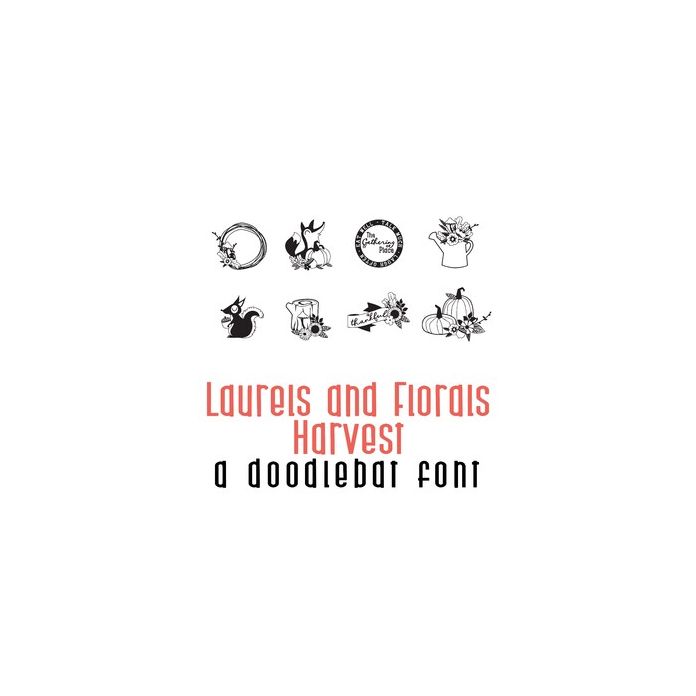
This beautiful doodlebat font features 26 different fall floral and harvest imagery. Perfect for cards, crafts, gifts, decor, planner stickers, scrapbook pages and more!